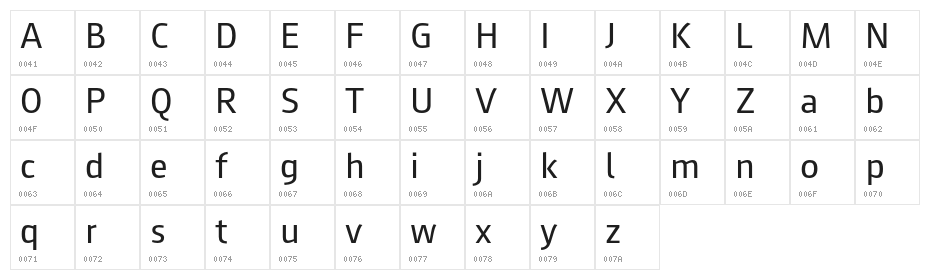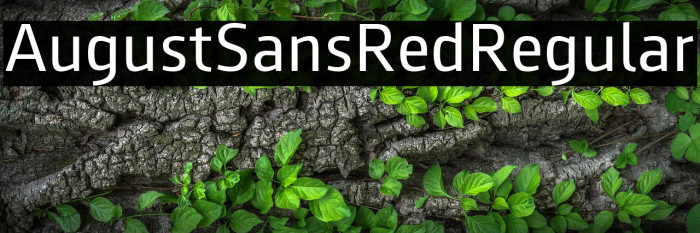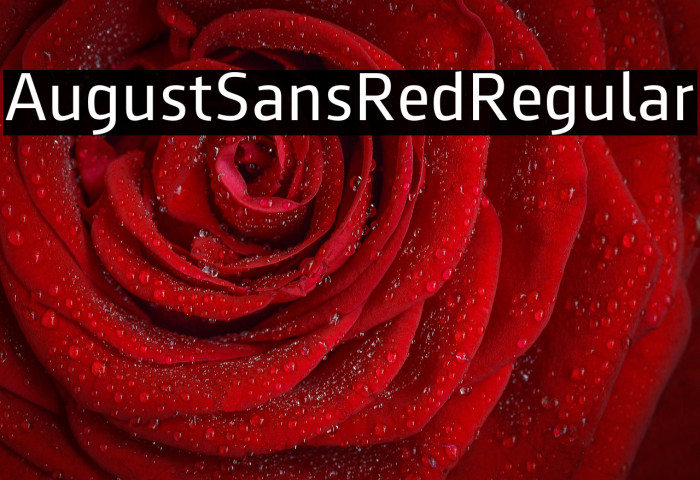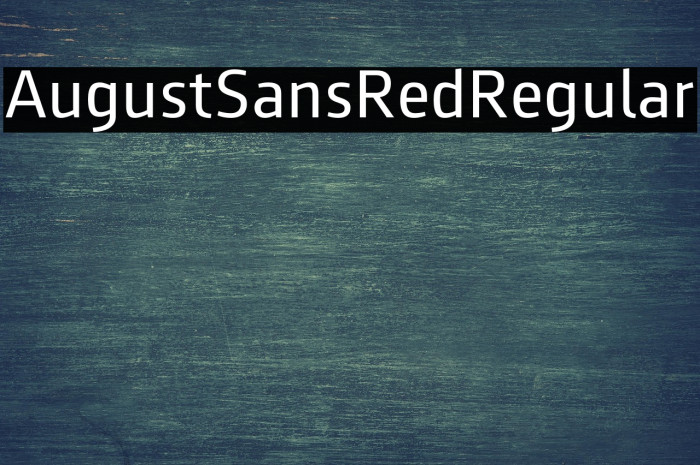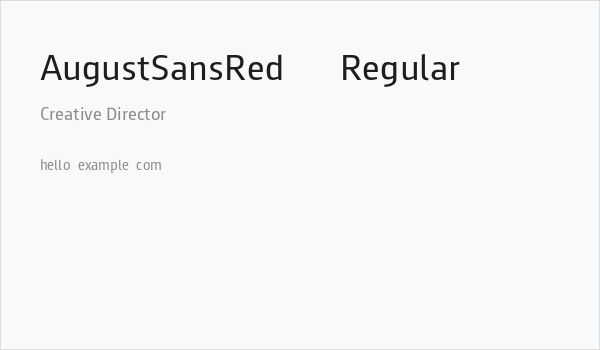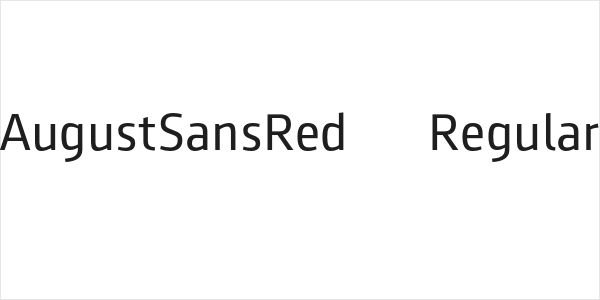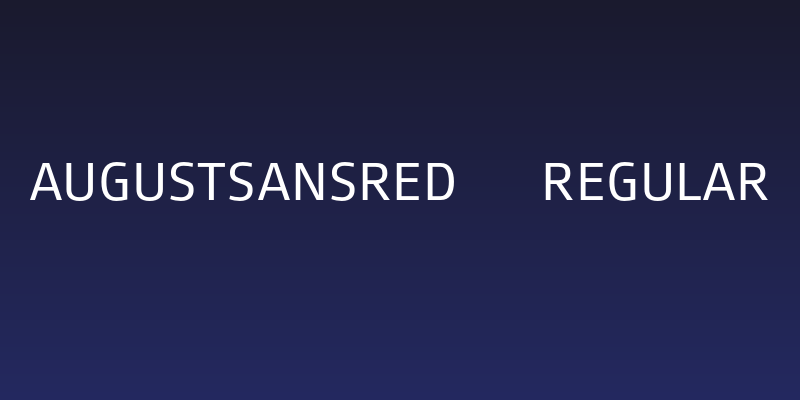
AugustSansRed-55Regular Font
AugustSansRed-55Regular Description
This typeface presents a clean and modern aesthetic, characterized by its sans-serif design. The letters are crafted with a uniform stroke width, providing a consistent and balanced appearance. The uppercase and lowercase characters maintain a harmonious proportion, enhancing readability. The font exhibits a slightly condensed width, which allows for efficient use of space without compromising legibility. Its simplicity and clarity make it versatile for various design applications. The overall style is minimalistic, with a focus on functionality and elegance.
| Proposed Projects | Ideal for corporate branding, web design, editorial layouts, and user interfaces where clarity and modernity are essential. |